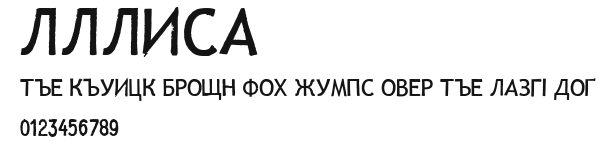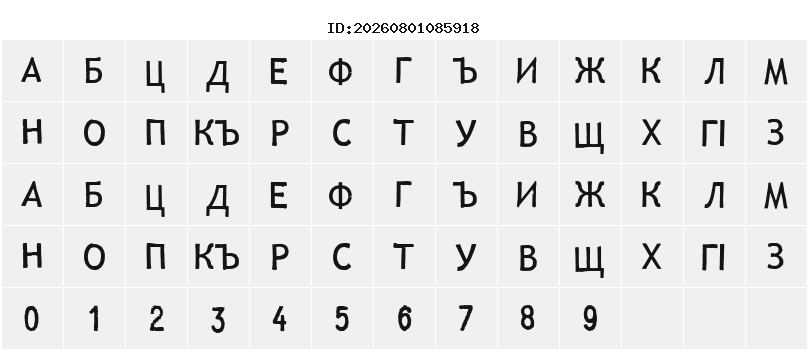
LLLisa Preview
• Font Name: LLLisa
About LLLisa.ttf
LLLisa.ttf is a modern, elegant sans-serif font designed for ultimate readability and visual harmony. Perfect for branding, headlines, web design, and print materials.